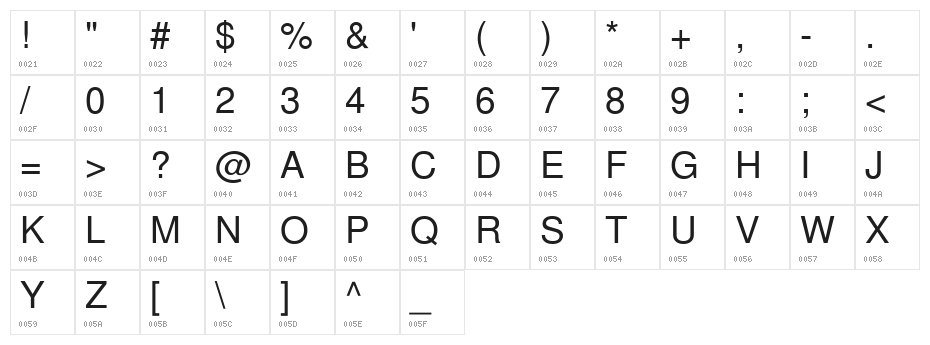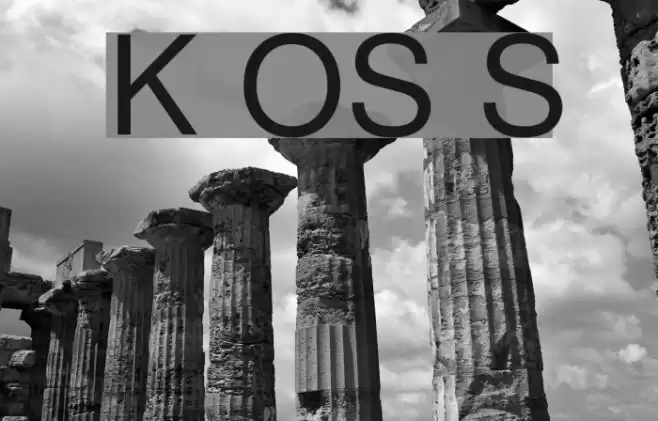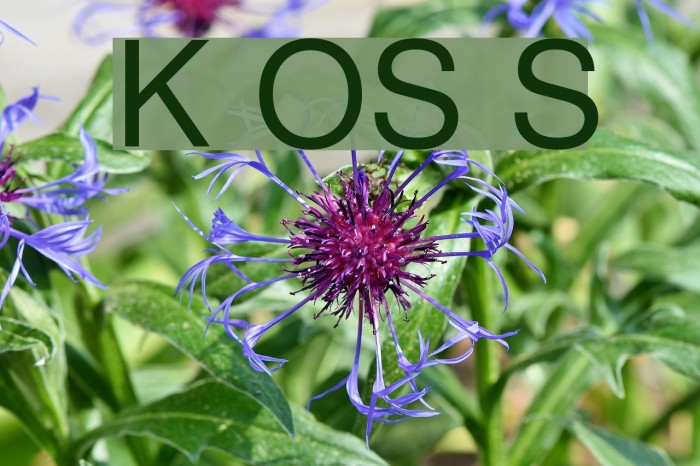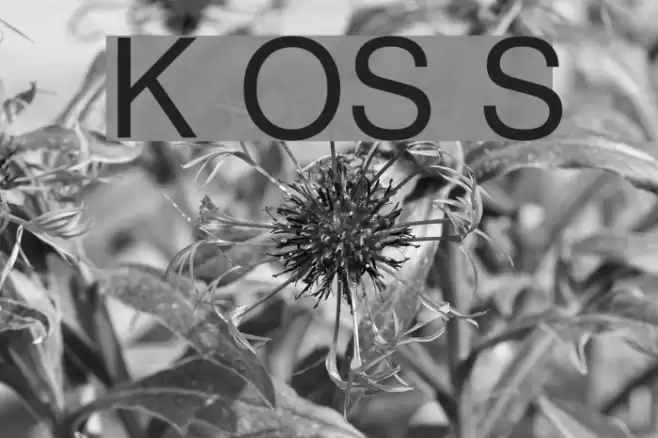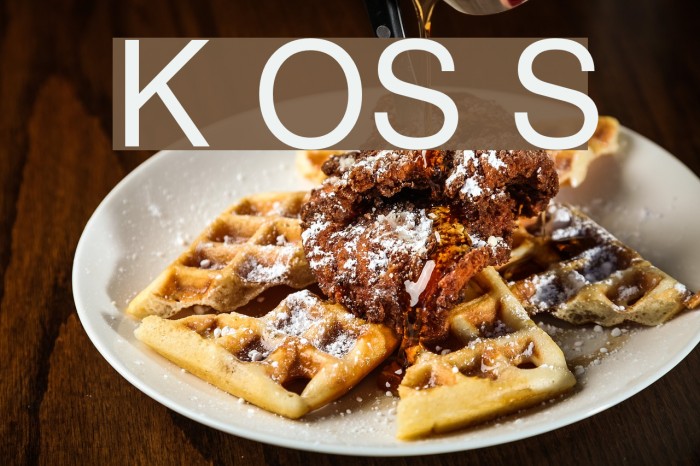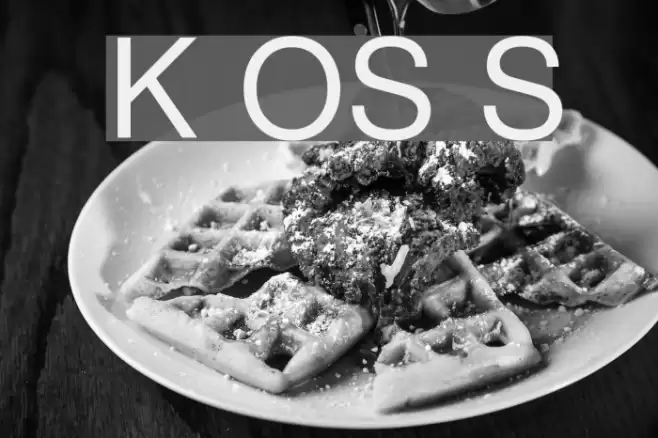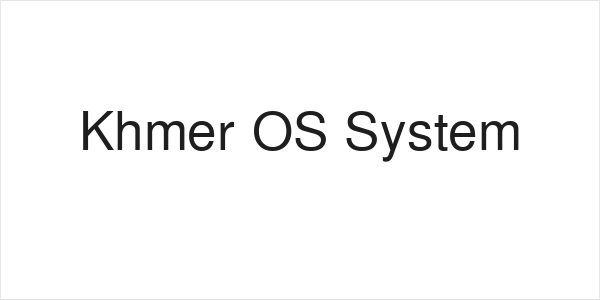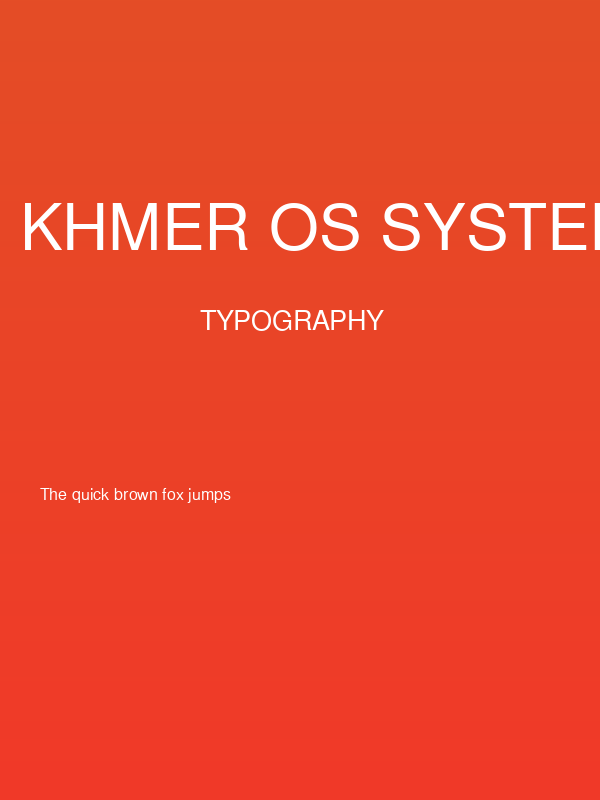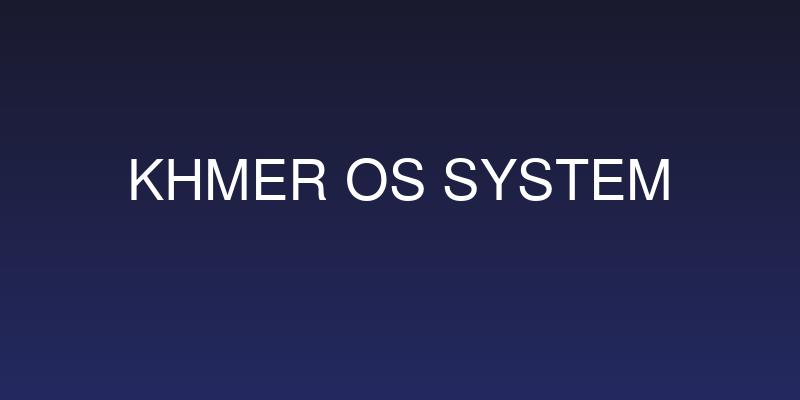
Khmer OS System Font
Khmer OS System Description
This font features a clean and modern sans-serif design, characterized by its simplicity and clarity. The characters are evenly spaced, providing a balanced and harmonious appearance. The uppercase letters are bold and assertive, while the lowercase letters maintain a consistent and approachable style. Numbers are clear and easy to read, making them suitable for various applications. Special characters are well-defined, ensuring versatility in usage. The overall design is straightforward, with a focus on functionality and readability, making it ideal for digital and print media.